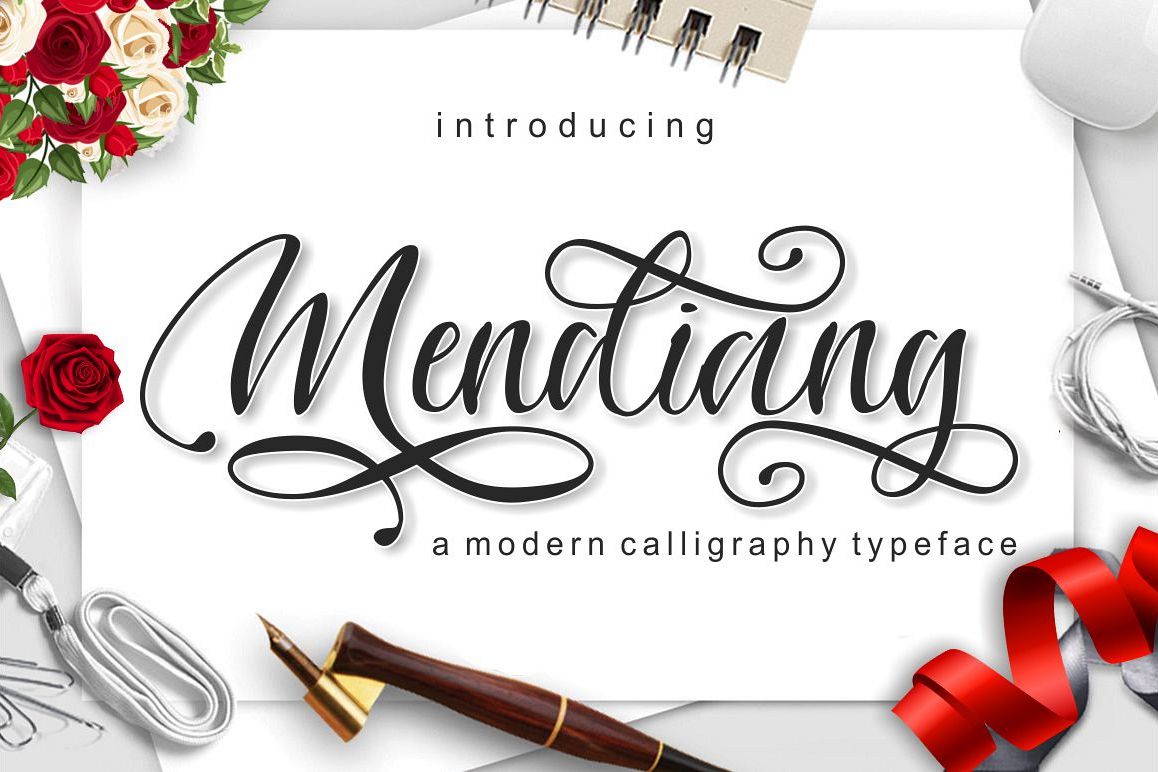
Mendiang Script
Mendiang Script is a modern calligraphy typeface with traditional hand writing. Mendiang Script multipurpose and flexible fonts, make it easy to match with another typefaces to create some beautiful project such as wedding invitation, vintage design, greeting card, poster, book cover, illustration, etc.